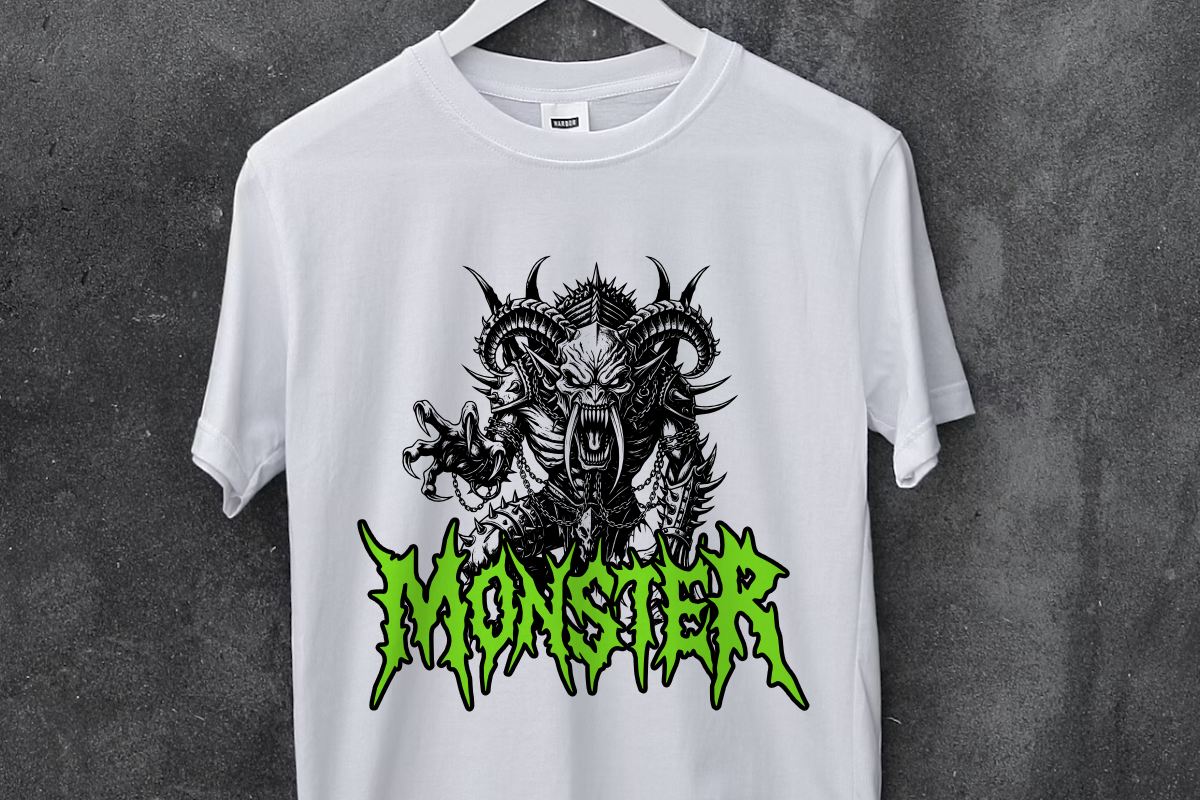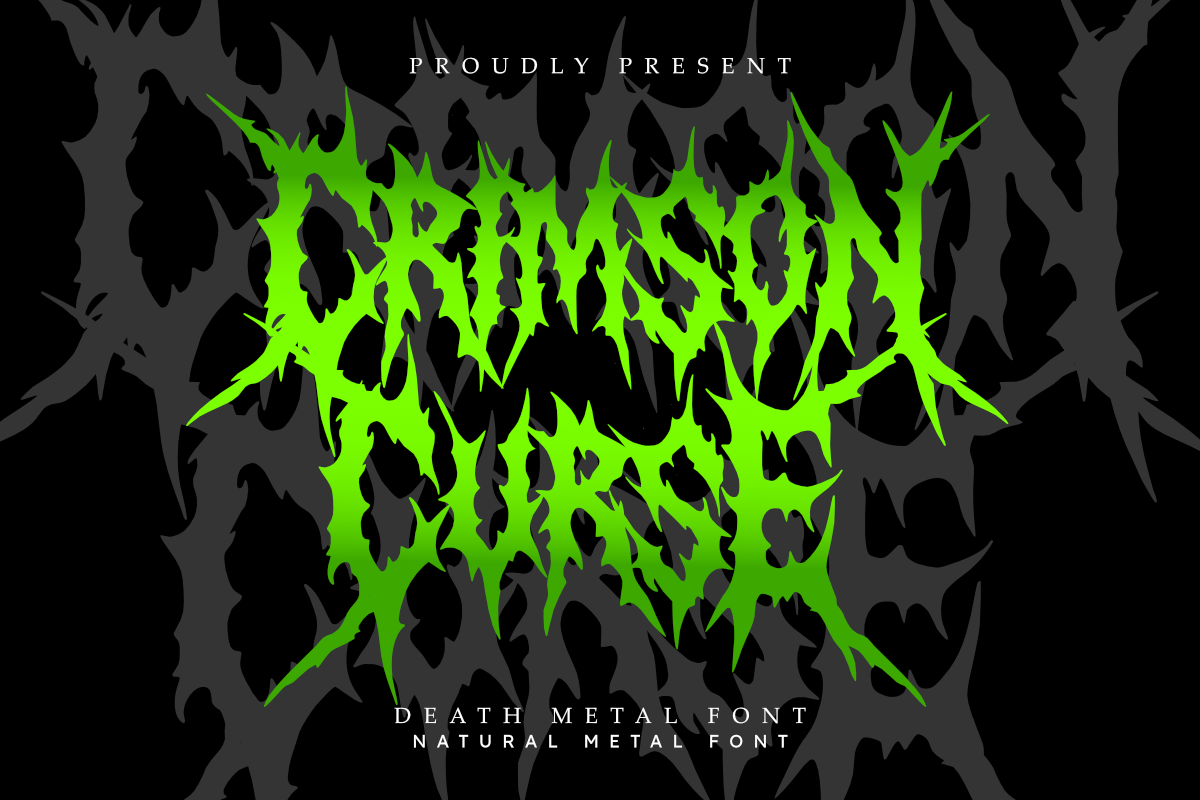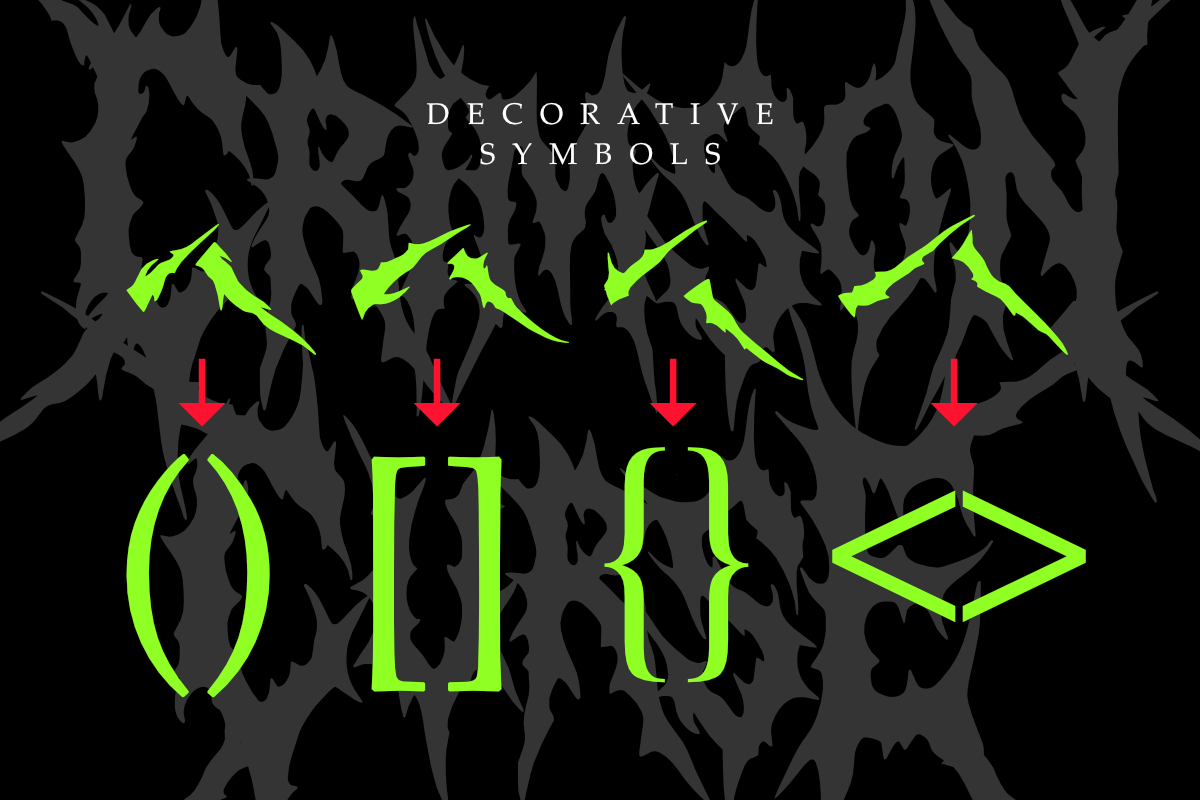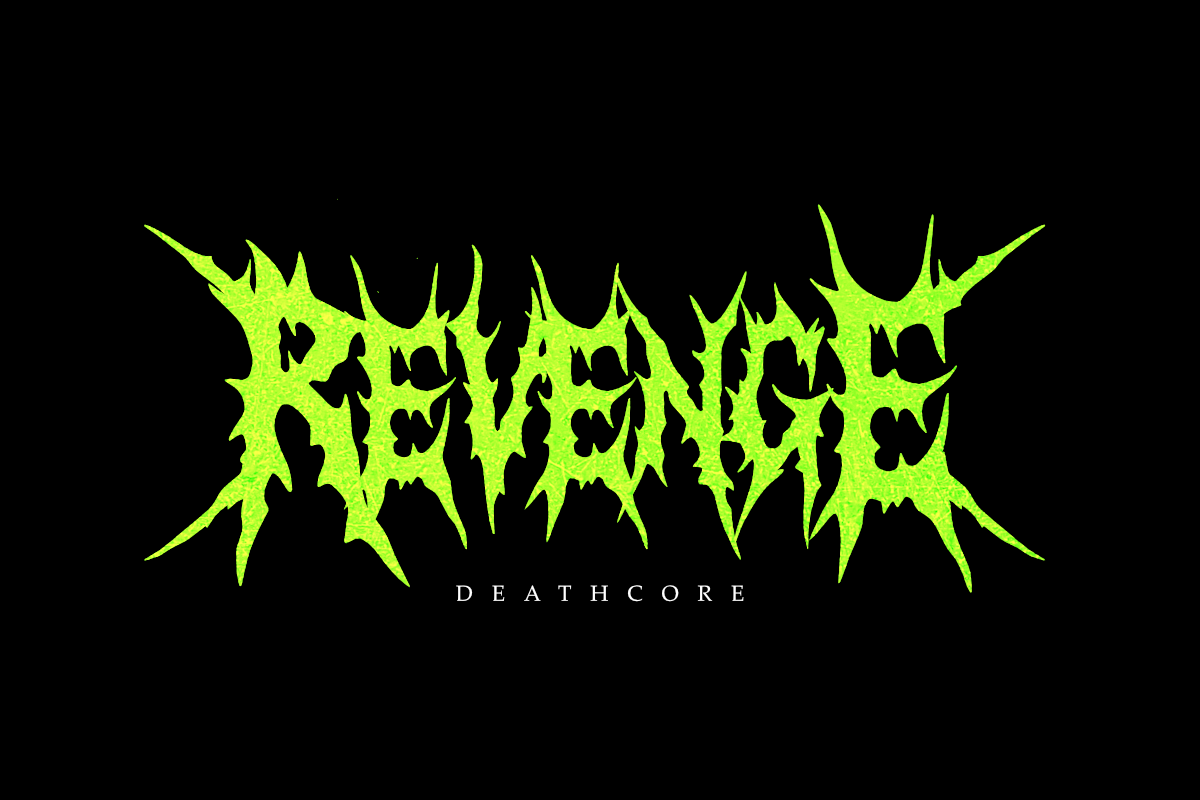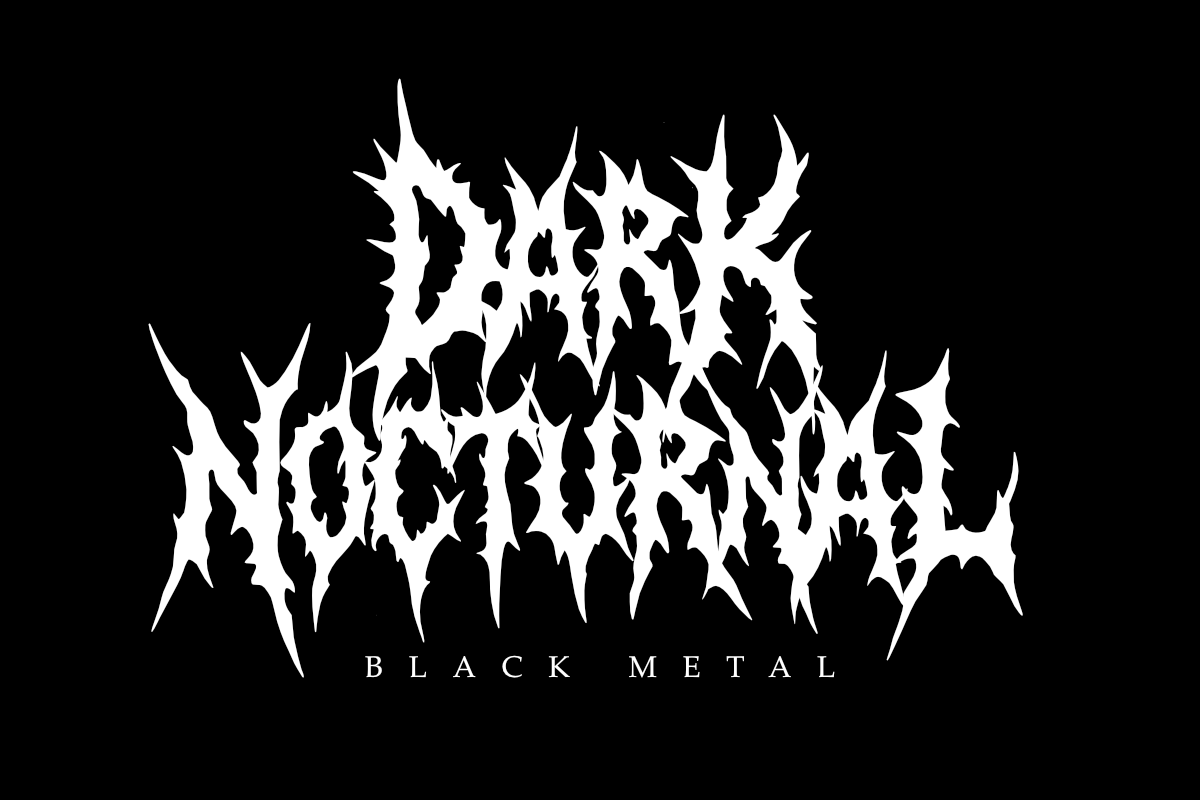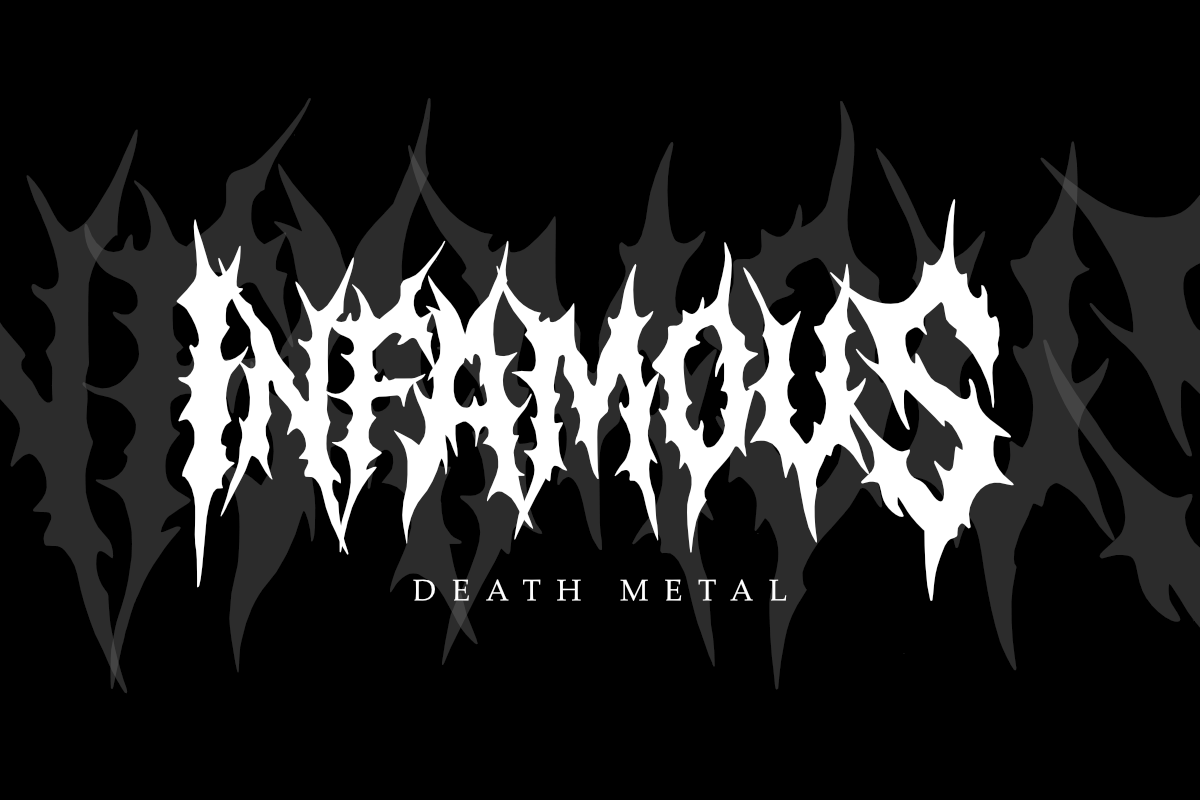
Crimson Curse - Death Metal Font
Crimson Curse is a raw, organic, and brutally detailed death metal font crafted for the darkest designs. This display font captures the chaotic essence of underground metal music with razor-sharp spikes and tangled letterforms — perfect for extreme band logos, album covers, merch, horror posters, and anything that screams raw power.
With natural curves and jagged edges, Crimson Curse feels hand-drawn and chaotic, giving your work a gritty authenticity. Whether you're creating brutal logos, festival posters, or horror visuals, this font delivers unapologetic metal energy.